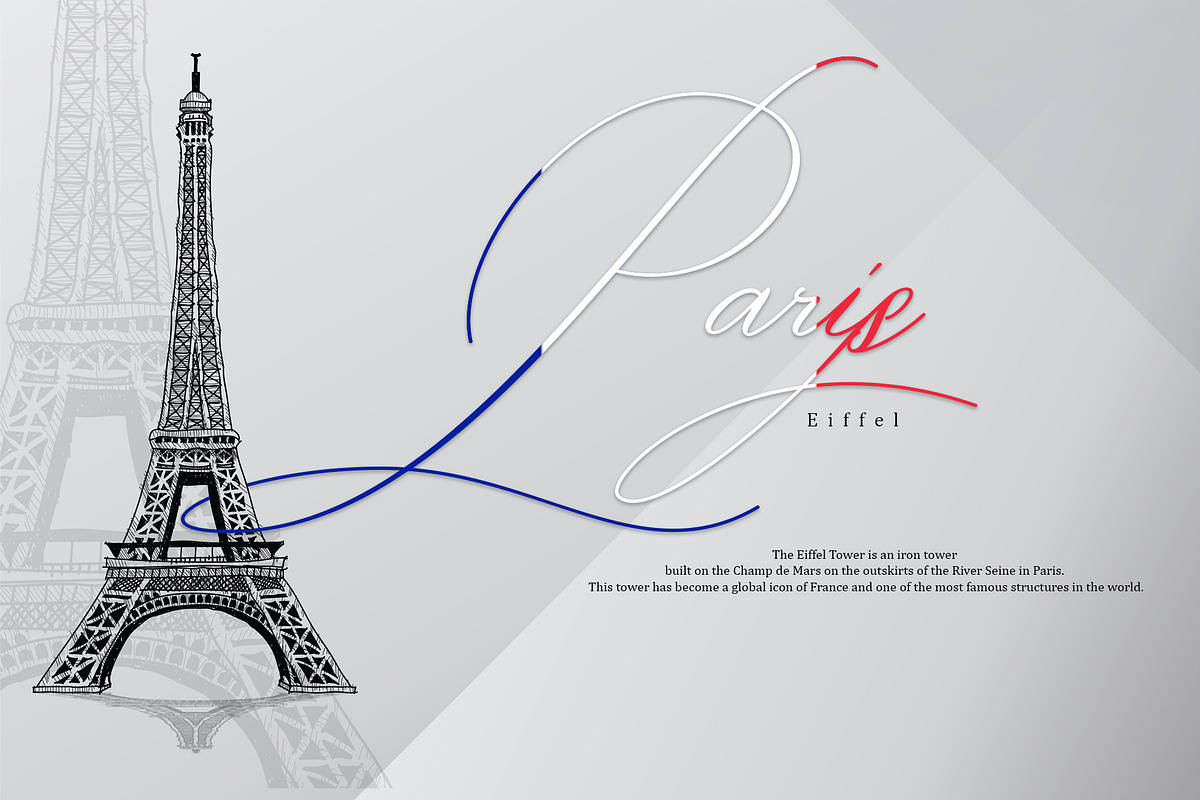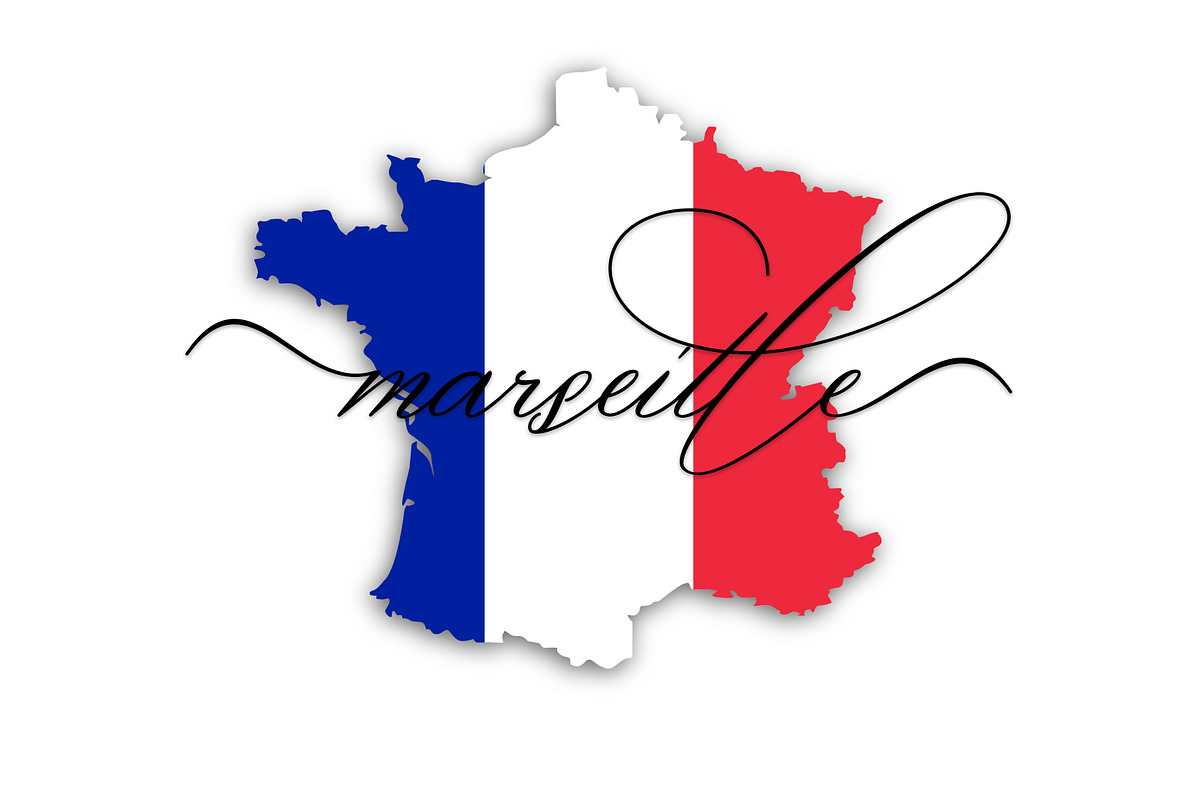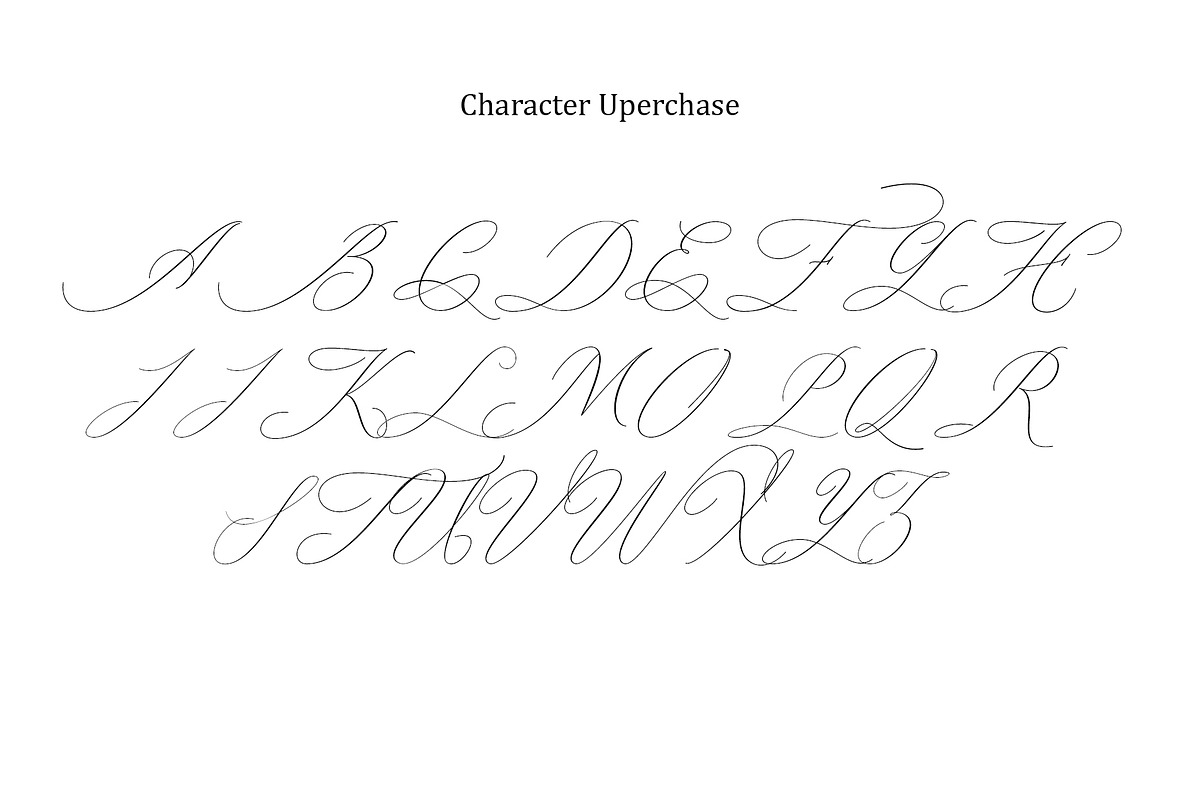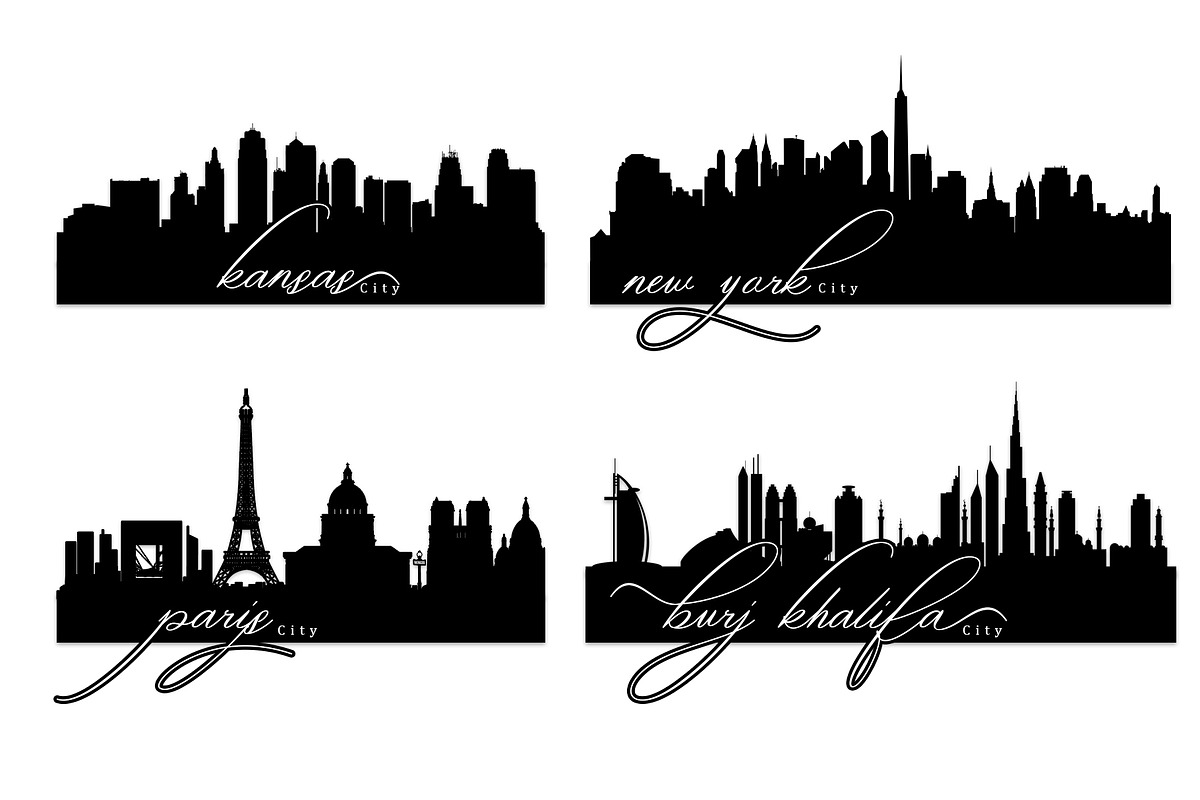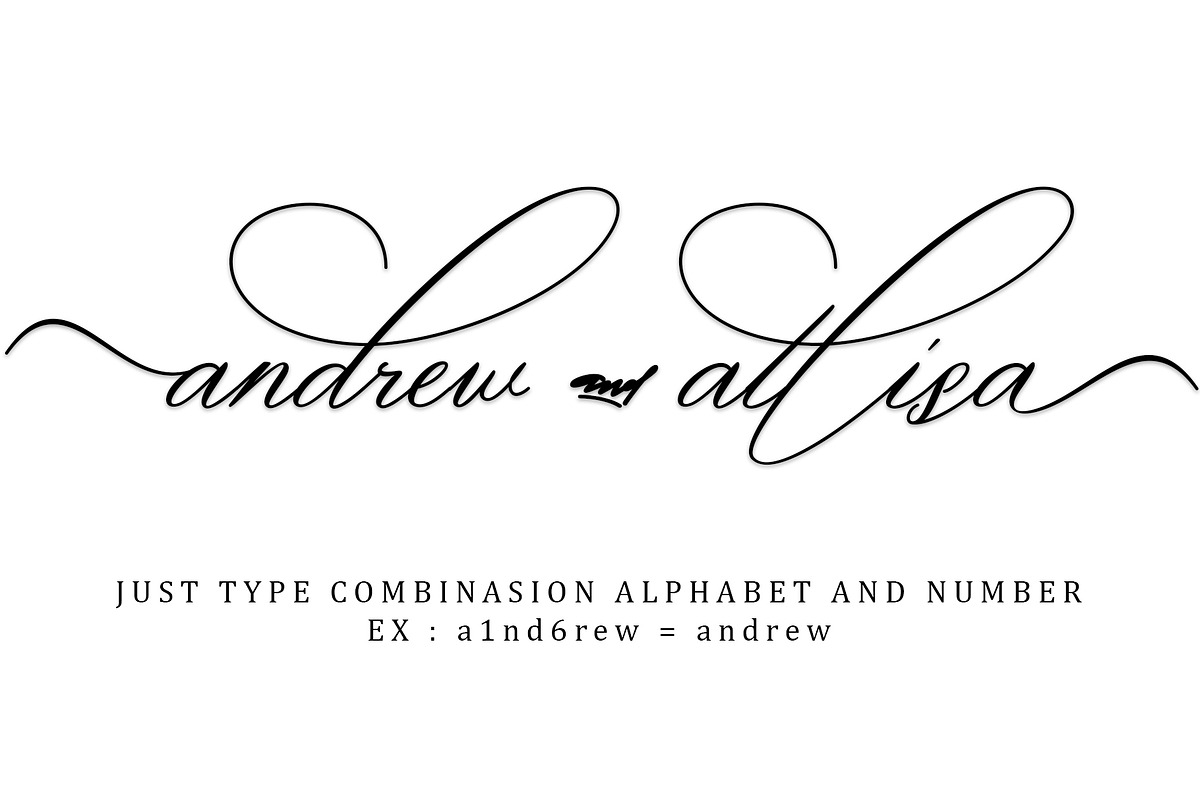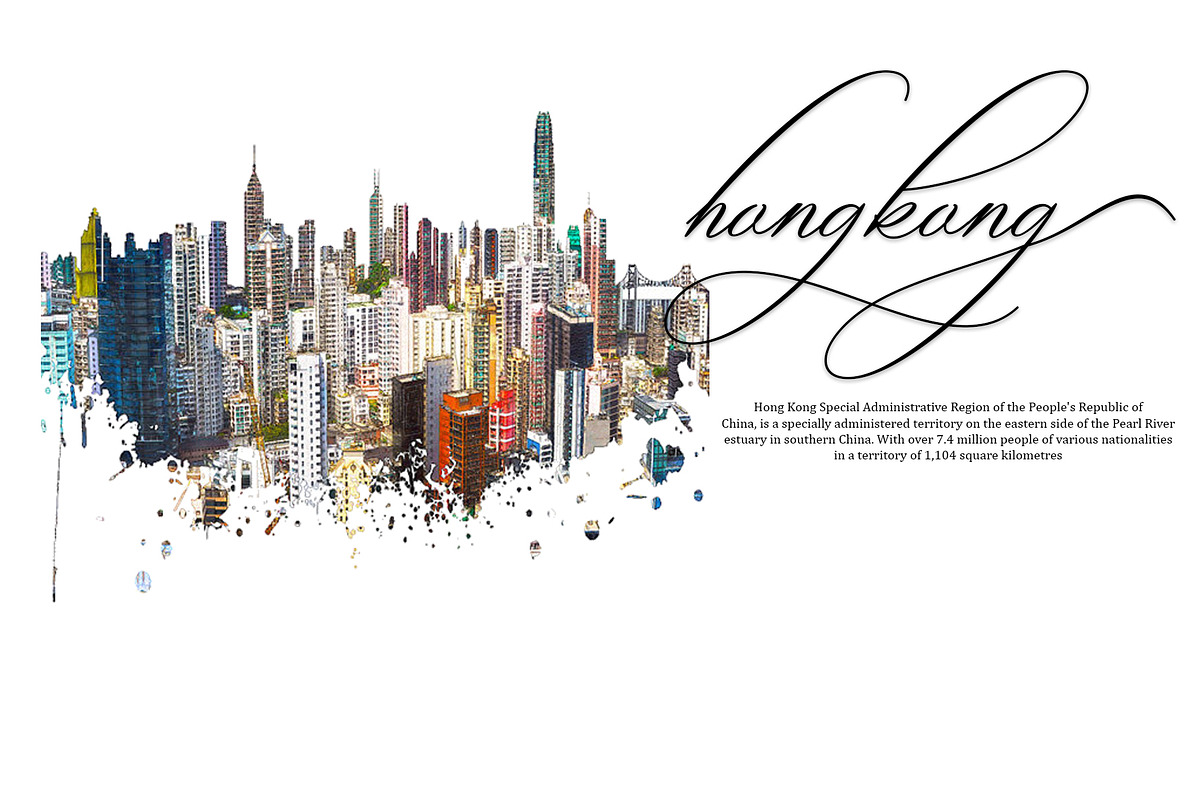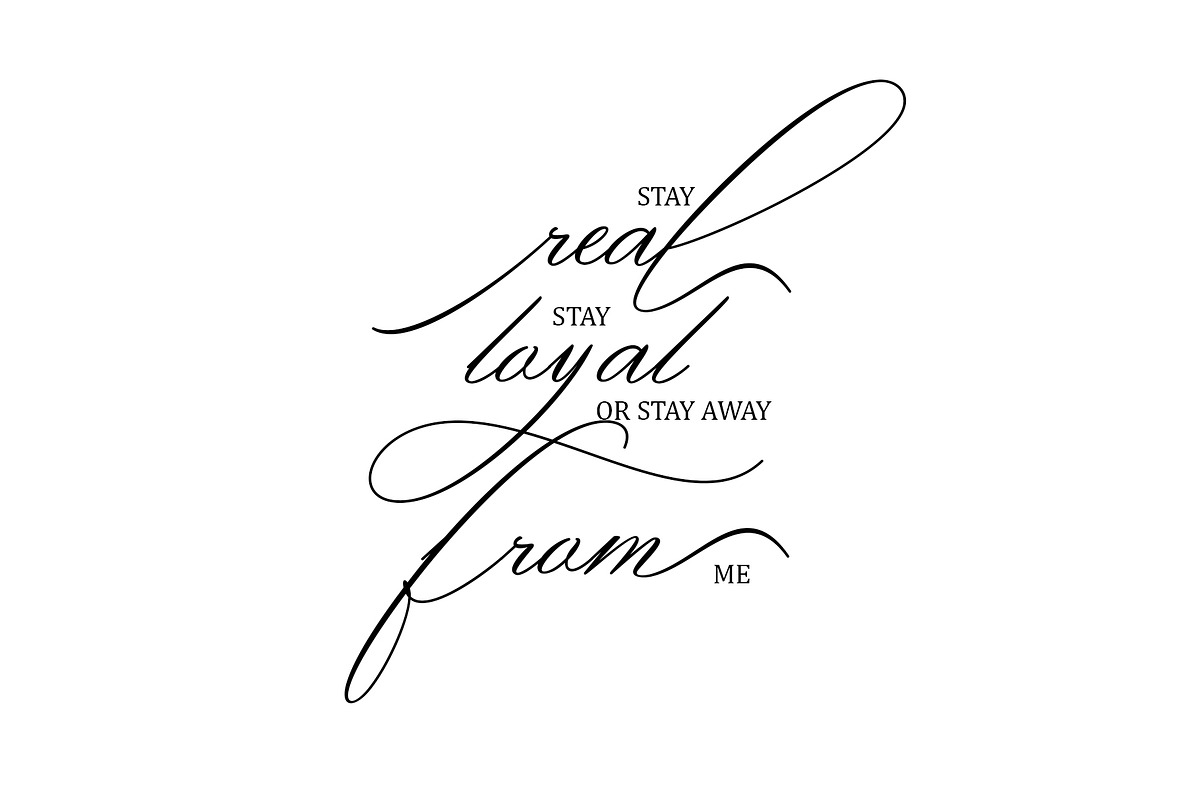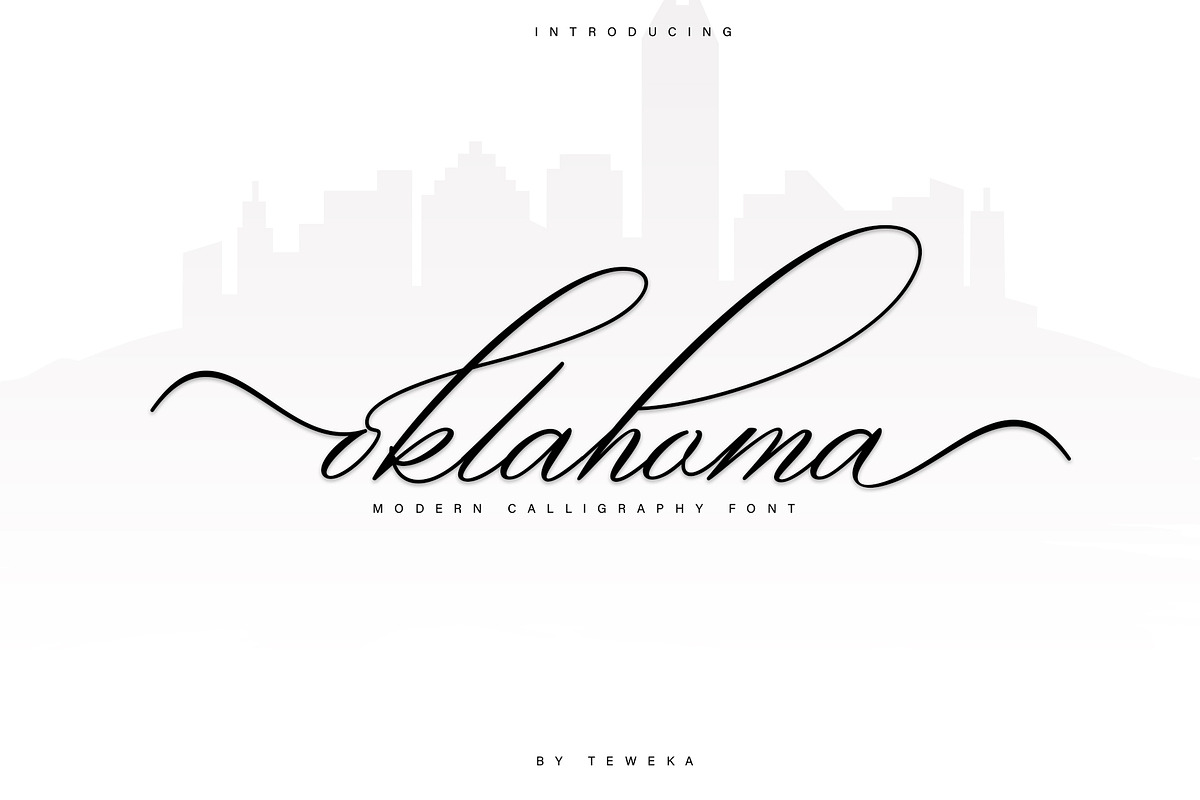
oklahoma calligraphy font
New Oklahoma is a font script, suitable for branding, posters, watermarks, business cards, clothing, magazines, web, and other design projects, beautiful and unique font scripts, it is a model of modern calligraphy typography, in combination with the style of classical calligraphy writing modern. This font has features like the previous font which is very easy to access swash and alternate, this font only has 309 glyphs, combining letters and numbers you can access swash and alternate.
The Features of this fonts is:
internasional languages